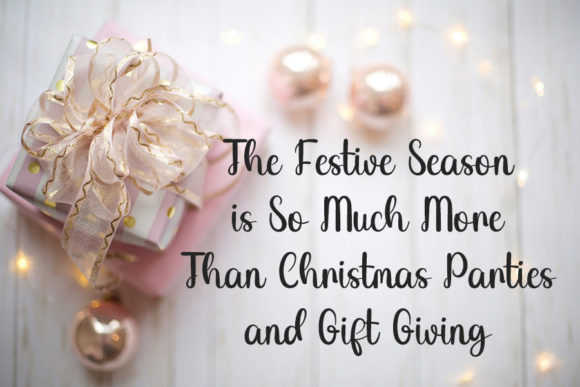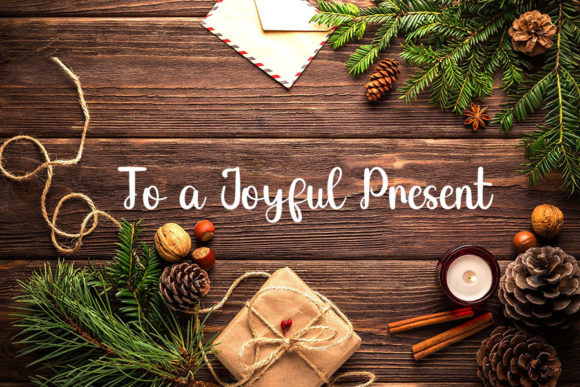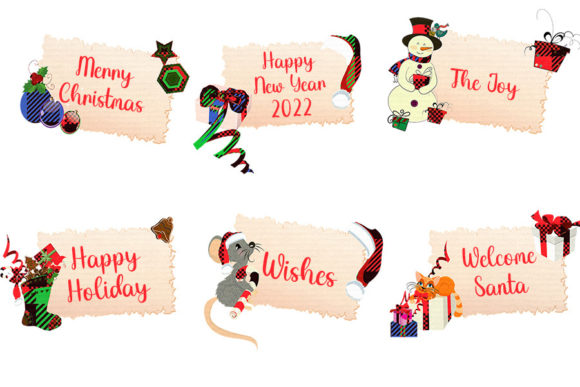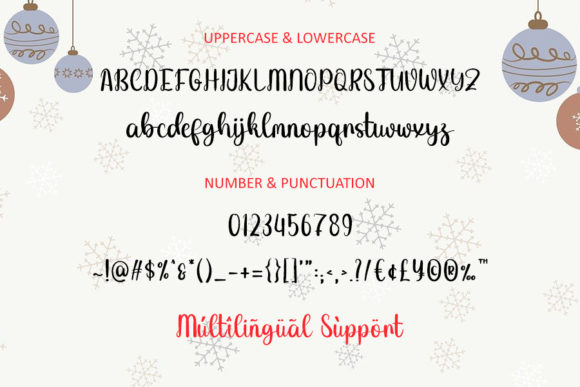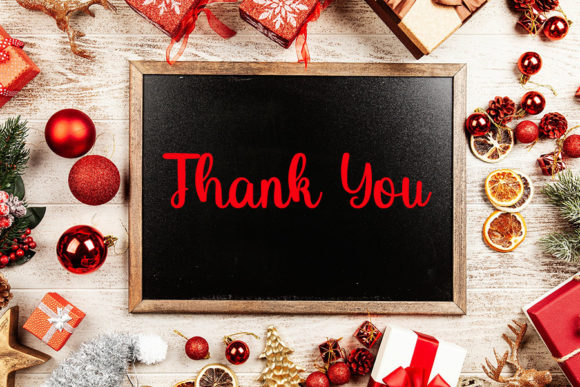
Hello Christmas Font: Elevate Your Designs with a Timeless Classic
The holiday season is upon us, and with it comes the need for festive and stylish designs that capture the essence of Christmas. For designers and crafters looking to add a touch of elegance to their projects, the Hello Christmas font is an excellent choice. This beautiful, handwritten font is inspired by timeless classic calligraphy and boasts a contemporary atmosphere that will make your designs shine.
The Characteristics of Hello Christmas Font
Hello Christmas is a stylish handwritten font that strikes the perfect balance between modernity and classic charm. Its most notable features include:
- Contemporary atmosphere: The font has a fresh and modern feel that will make your designs stand out from the crowd.
- Impeccable form: The font’s elegant and refined lines ensure that it is legible and visually appealing.
- Balanced and varied: The font’s thickness is neither too thin nor too thick, making it perfect for a wide range of design applications.
Why Choose Hello Christmas Font?
With so many fonts available, why should you choose Hello Christmas for your design projects? Here are just a few compelling reasons:
- Versatility: The font’s balanced and varied design makes it suitable for a wide range of projects, from holiday cards and invitations to branding and packaging.
- Elegance: The font’s classic calligraphy inspiration gives it a sophisticated and elegant feel that will elevate your designs.
- Readability: The font’s clear and refined lines ensure that it is easy to read, even at small sizes.
Design Applications for Hello Christmas Font
The Hello Christmas font is an incredibly versatile design tool that can be used in a wide range of applications, including:
- Holiday cards and invitations: Add a touch of elegance to your holiday greetings with this beautiful font.
- Branding and packaging: Use the font to create eye-catching logos, labels, and packaging that will make your products stand out.
- Social media graphics: Create festive and engaging social media graphics that will help your content stand out.
- Web design: Use the font to add a touch of holiday cheer to your website’s design.
Tips for Using Hello Christmas Font
To get the most out of the Hello Christmas font, here are a few tips to keep in mind:
- Experiment with sizes: The font’s clear and refined lines make it legible at a wide range of sizes, so don’t be afraid to experiment with different sizes to find the one that works best for your design.
- Pair with complementary fonts: The Hello Christmas font pairs well with a wide range of fonts, so try pairing it with complementary fonts to create visual interest.
- Use it sparingly: While the font is beautiful and elegant, it can be overwhelming if used too much. Use it sparingly to create emphasis and add visual interest to your designs.